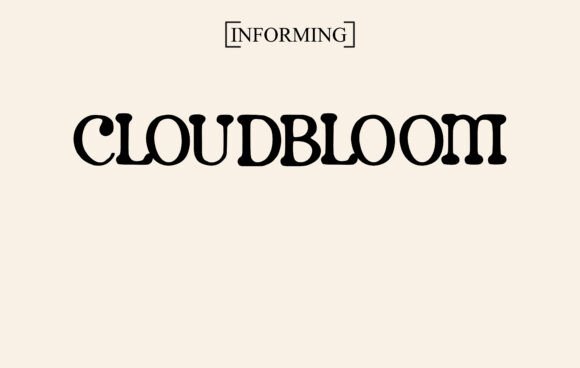
Introducing Cloudbloom Font: Elevate Your Creative Projects with Elegance and Versatility
In the world of typography, fonts play a crucial role in conveying messages, expressing emotions, and creating lasting impressions. Among the myriad of fonts available, Cloudbloom Font stands out as a true gem, designed to be a favorite among designers, artists, and creative enthusiasts. This exquisite font is crafted to take your creative ideas to new heights, offering a perfect blend of legibility, elegance, and versatility.
Key Features of Cloudbloom Font
- Legibility: Cloudbloom Font boasts exceptional legibility, making it an ideal choice for both title and body text. Its clear and crisp design ensures that your message is conveyed with precision and clarity.
- Versatility: This font is incredibly versatile, suitable for a wide range of design projects, including magazine headlines, t-shirts, social media graphics, branding materials, wedding invitations, cards, and more.
- Elegance: Cloudbloom Font exudes elegance and sophistication, adding a touch of refinement to any design. Its beautiful curves and lines create a lasting impression, making it perfect for projects that demand a high level of creativity and style.
Endless Design Possibilities with Cloudbloom Font
Cloudbloom Font is a true chameleon, adapting seamlessly to various design applications. Here are some of the many ways you can utilize this incredible font:
- Magazine Headlines: Create attention-grabbing headlines that draw readers in with Cloudbloom Font’s bold and elegant design.
- T-Shirts and Merchandise: Add a touch of style and sophistication to your apparel and merchandise with Cloudbloom Font’s versatile and legible design.
- Social Media Graphics: Elevate your social media presence with stunning graphics that showcase Cloudbloom Font’s elegance and creativity.
- Branding and Identity: Establish a strong brand identity with Cloudbloom Font’s unique and memorable design, perfect for logos, business cards, and more.
- Wedding Invitations and Cards: Add a touch of romance and elegance to your wedding invitations, cards, and other stationery with Cloudbloom Font’s beautiful and refined design.
Typography Tips for Working with Cloudbloom Font
To get the most out of Cloudbloom Font, here are some typography tips to keep in mind:
- Experiment with Font Sizes: Cloudbloom Font looks great in various font sizes, from large headlines to smaller body text. Experiment with different sizes to find the perfect balance for your design.
- Play with Line Spacing: Adjusting line spacing can greatly impact the overall flow and readability of your text. Experiment with different line spacing settings to find the perfect fit.
- Combine with Other Fonts: Cloudbloom Font pairs well with other fonts, allowing you to create stunning font combinations that add depth and interest to your design.
The Benefits of Using Cloudbloom Font
So, what sets Cloudbloom Font apart from other fonts? Here are some benefits of using this incredible font:
- Time-Saving: With Cloudbloom Font, you can save time and effort in finding the perfect font for your project. Its versatility and legibility make it an excellent choice for a wide range of designs.
- Professional Results: Cloudbloom Font is designed to produce professional-looking results, making it perfect for designers, artists, and businesses looking to create high-quality visual content.
- Unique and Memorable: Cloudbloom Font’s unique design ensures that your project stands out from the crowd, leaving a lasting impression on your audience.
In conclusion, Cloudbloom Font is an exceptional font that offers a perfect blend of elegance, versatility, and legibility. Its wide range of design applications, typography tips, and benefits make it an excellent choice for designers, artists, and creative enthusiasts. Whether you’re working on a magazine headline, t-shirt design, social media graphic, or branding project, Cloudbloom Font is sure to elevate your creative ideas to new heights.